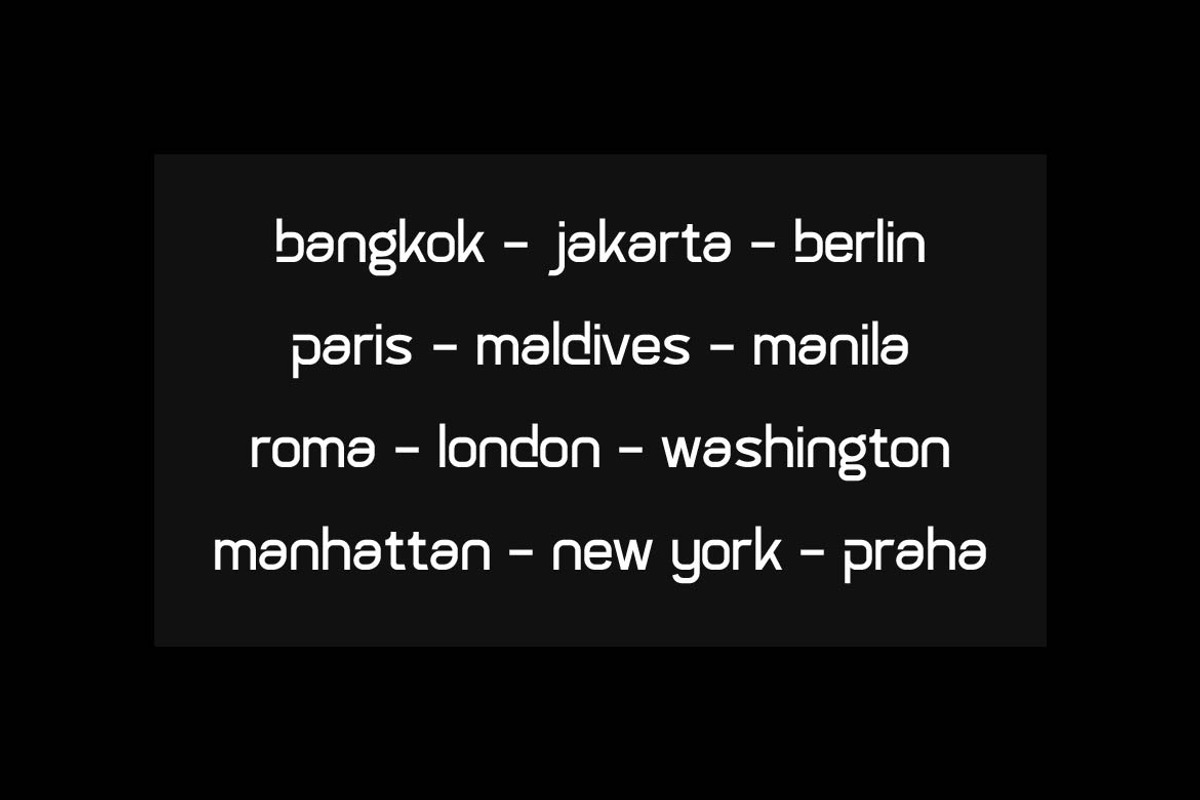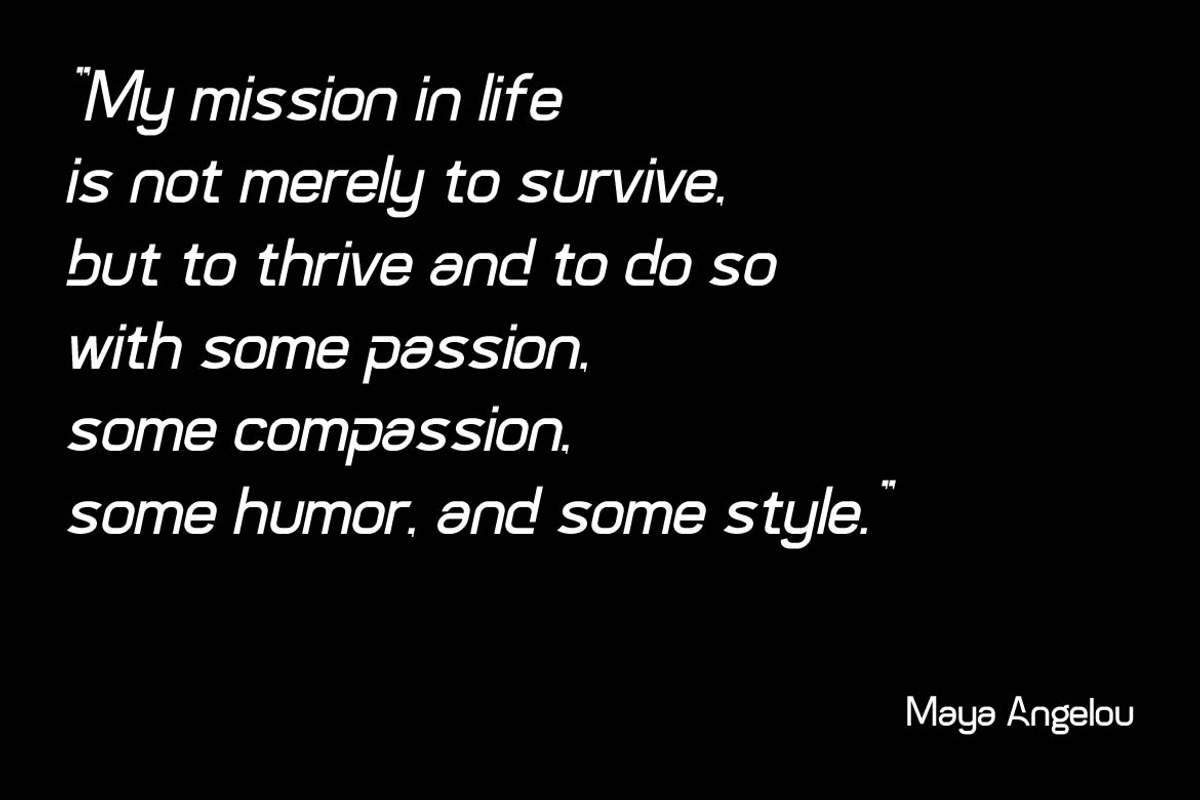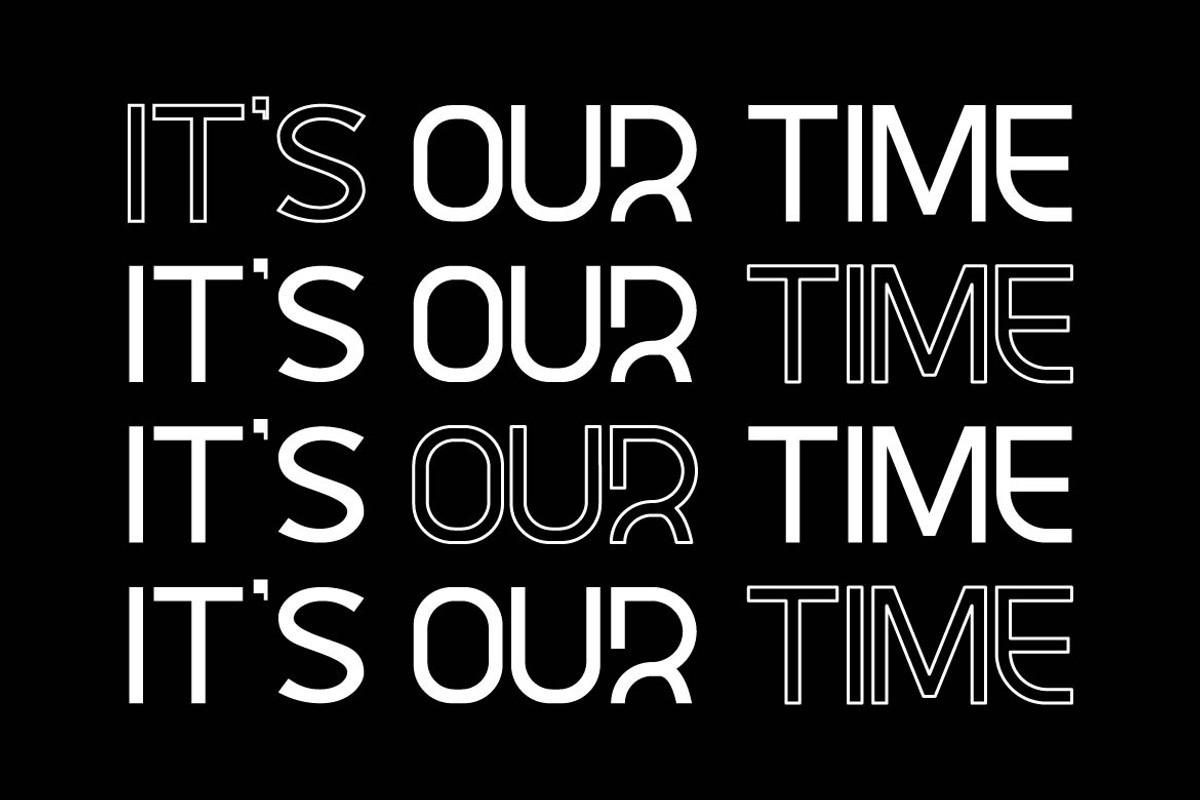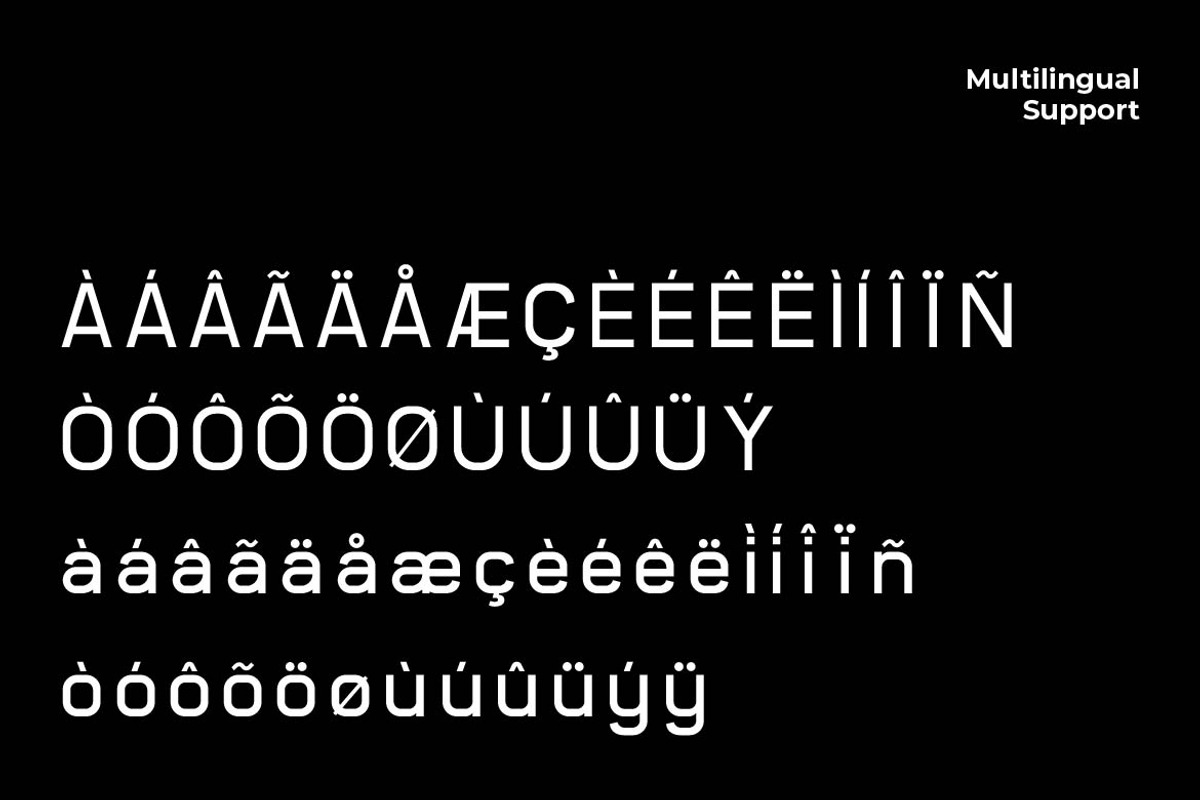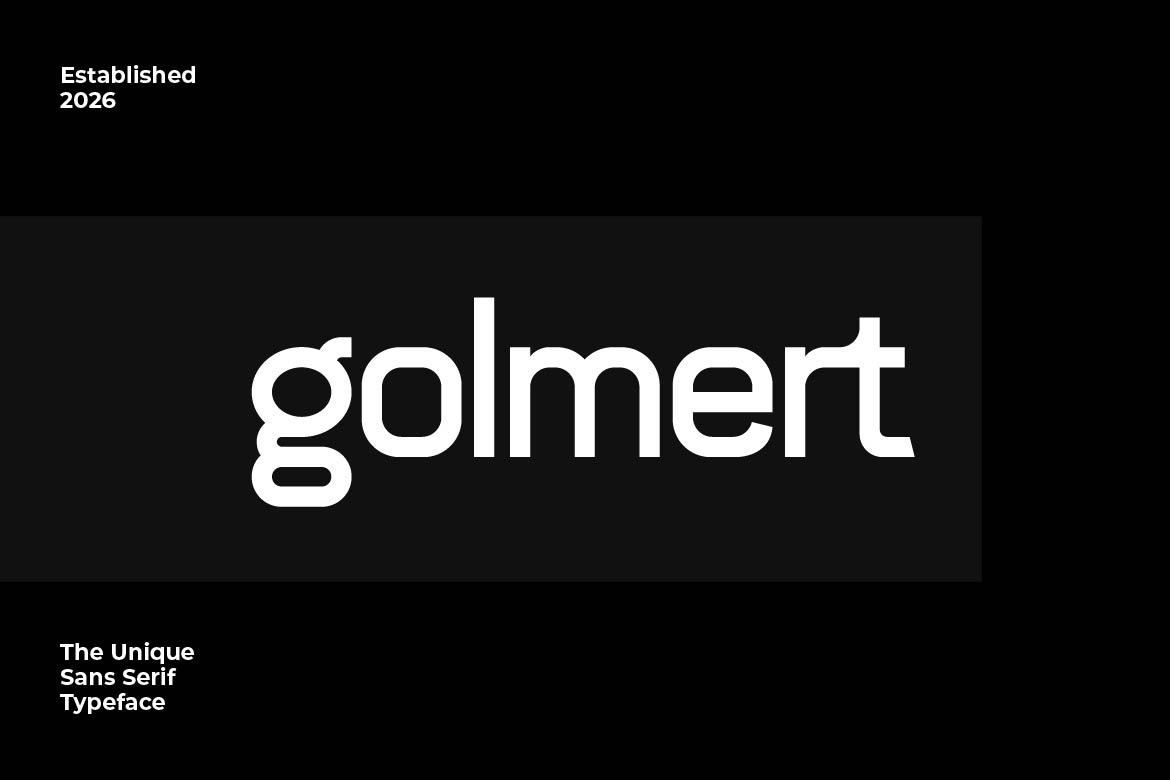
Golmert Film Poster Sans Serif Font
Golmert is a modern sans serif font inspired by the bold, clean typography often seen in film posters and movie title sequences. With strong letterforms, sharp details, and a confident structure, Golmert delivers a cinematic feel that instantly elevates any visual project.